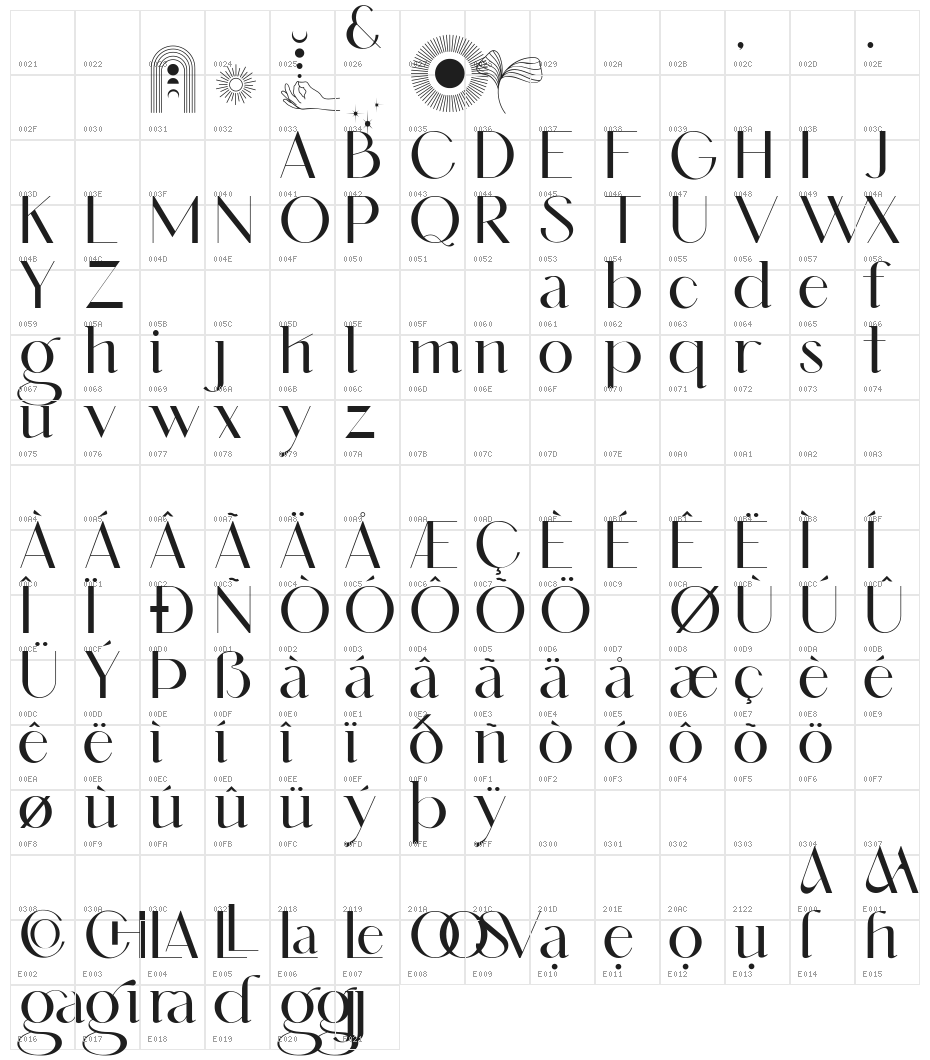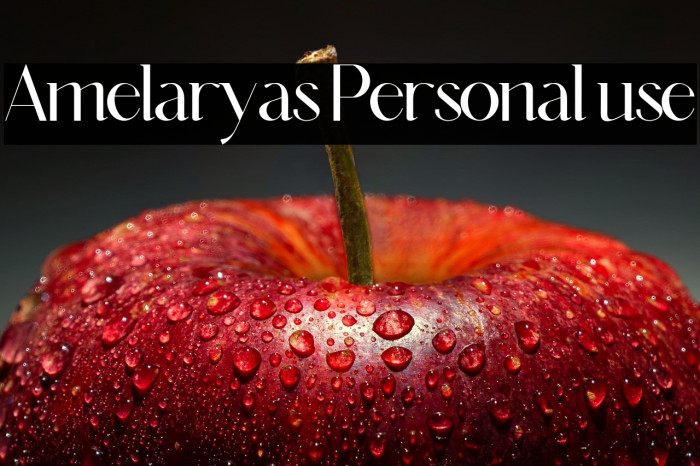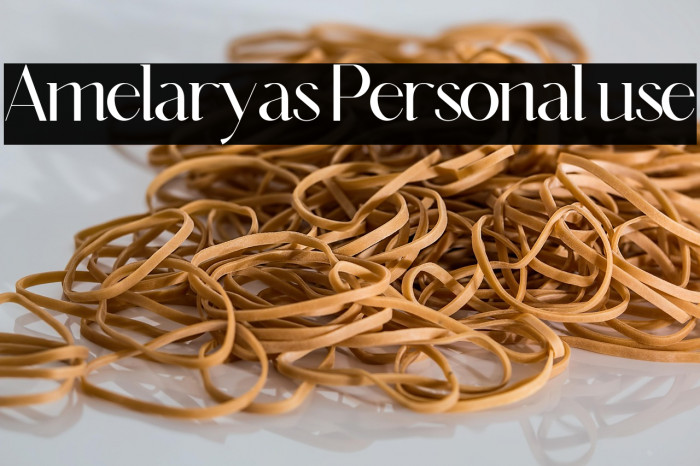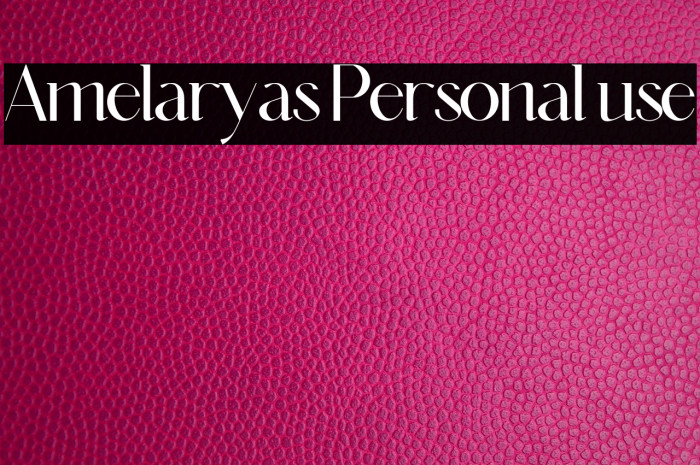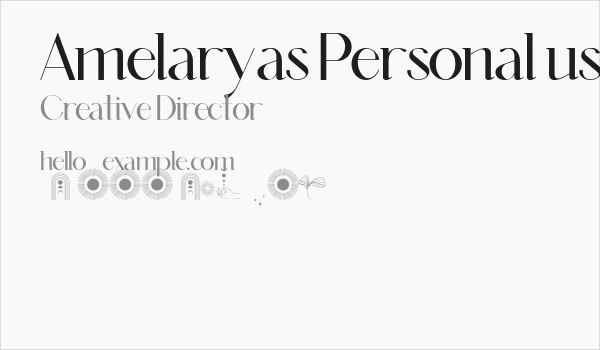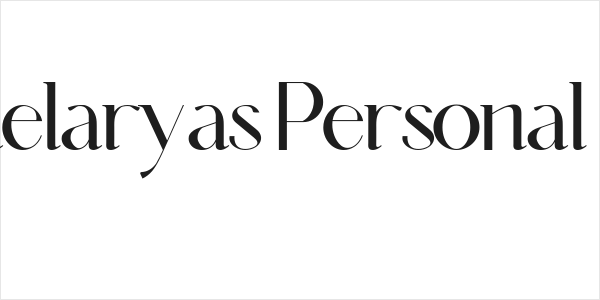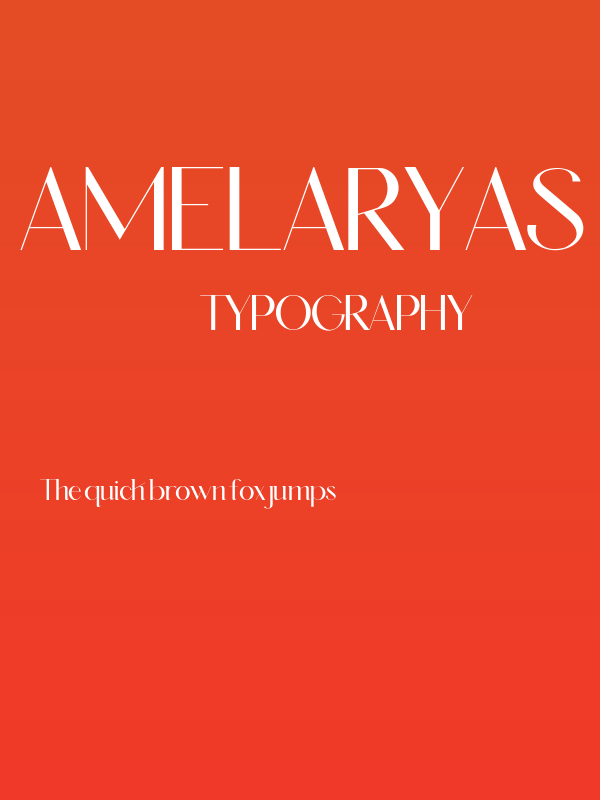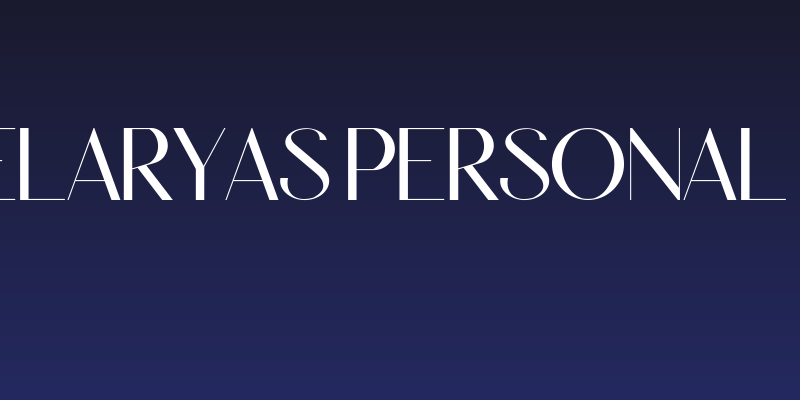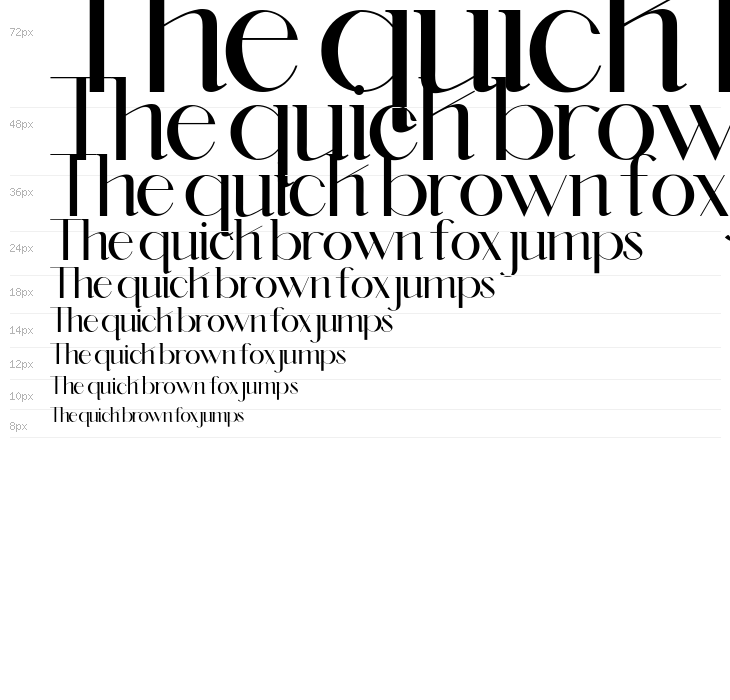
Amelaryas Personal use Font
Amelaryas Personal use Description
This font features a modern and elegant design with a high contrast between thick and thin strokes, giving it a sophisticated and stylish appearance. The uppercase letters are tall and slender, while the lowercase letters have a more fluid and graceful form. The unique design elements, such as the decorative flourishes and artistic symbols, add a creative flair to the overall look. The font's clean lines and geometric shapes make it suitable for contemporary design projects. Its distinctive style is perfect for making a bold statement while maintaining a sense of elegance and refinement.
| Use Case | Headlines, Logos, Artistic Designs |
| Proposed Projects | Ideal for branding, fashion magazines, luxury product packaging, and artistic posters. |